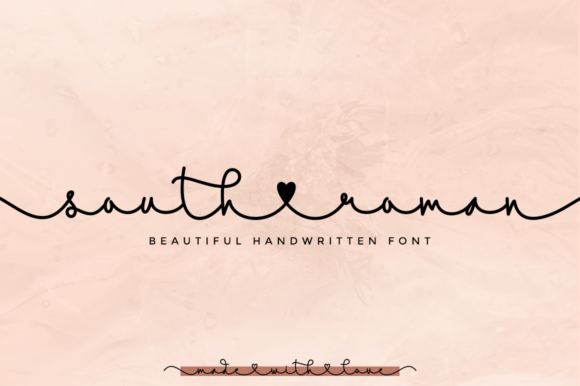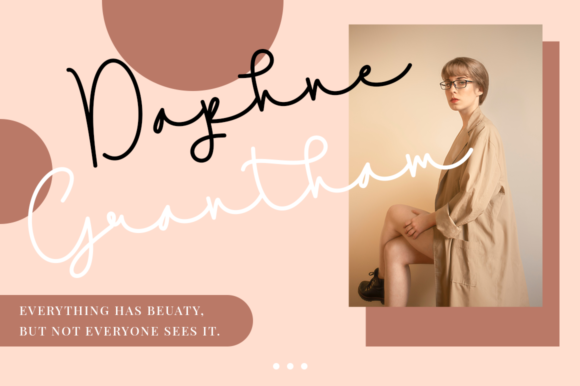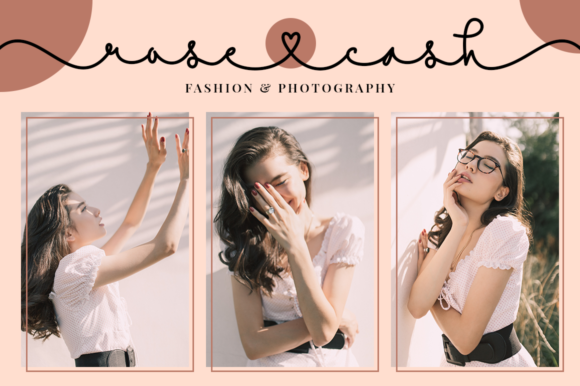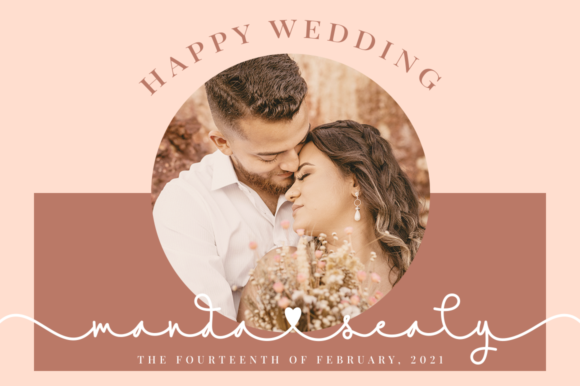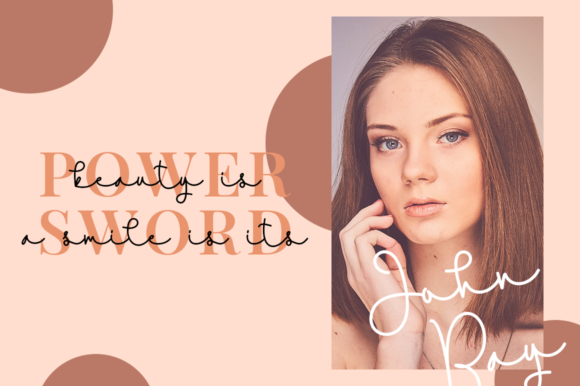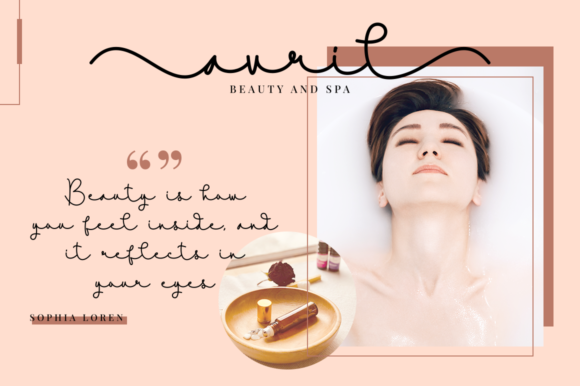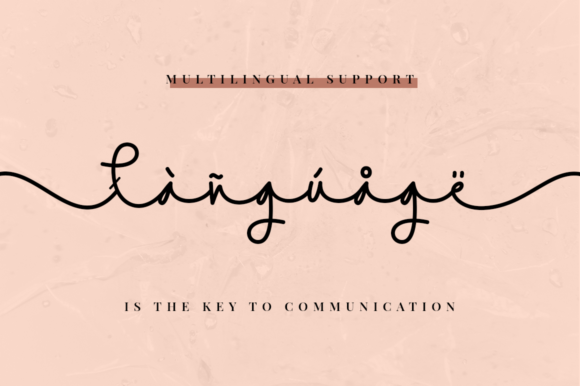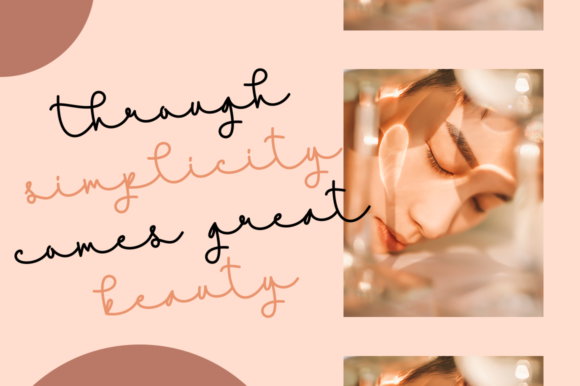
South Roman Font
About South Roman Font
South Roman is a beautiful handwritten monoline style font. Having a unique character shape completes its beauty. South Roman is the right choice to support your business. The strokes are firm and clean, making them elegant and classy. It has a long tail and heart-shaped character alternative that is perfect for logos, greeting cards, weddings, magazines, book covers, Valentine’s Day, and more. This font also has multilingual support.